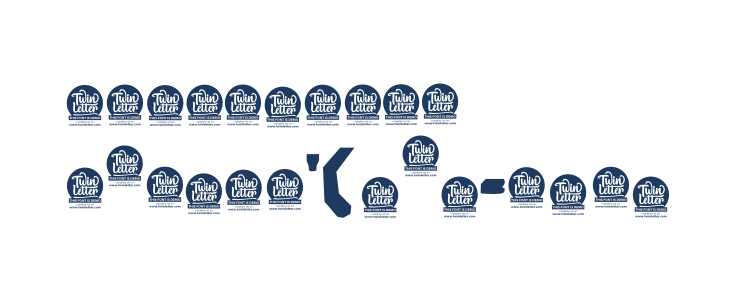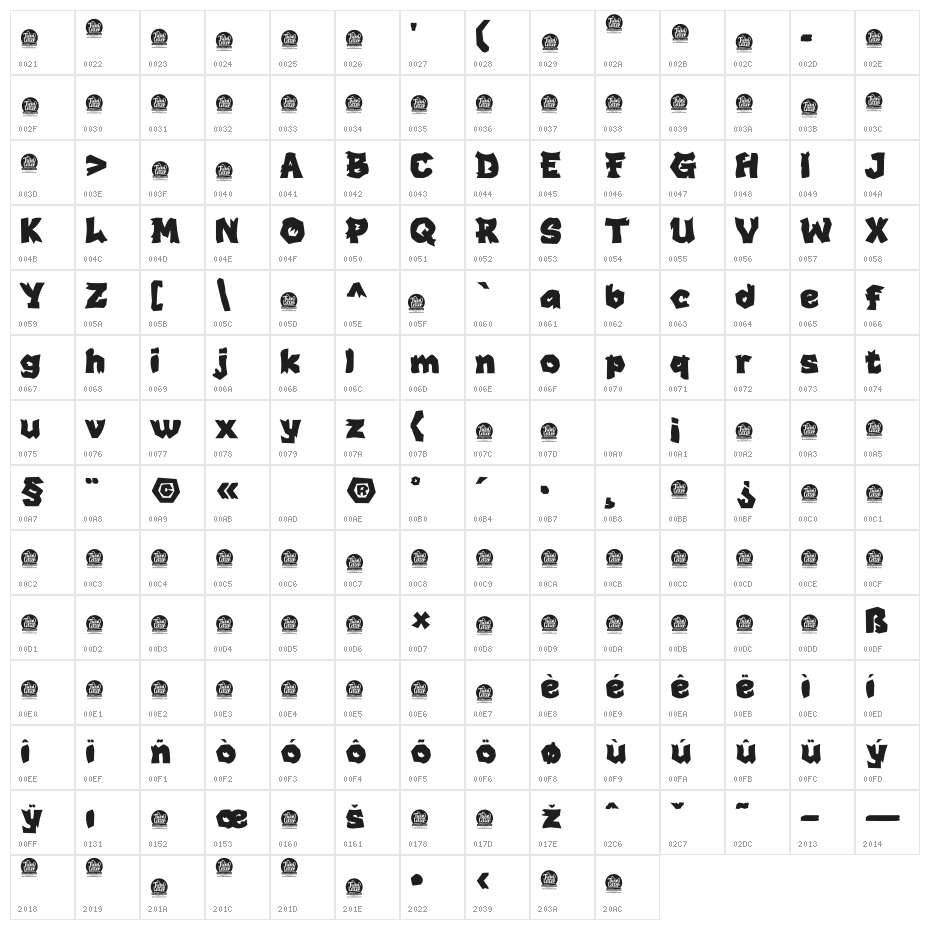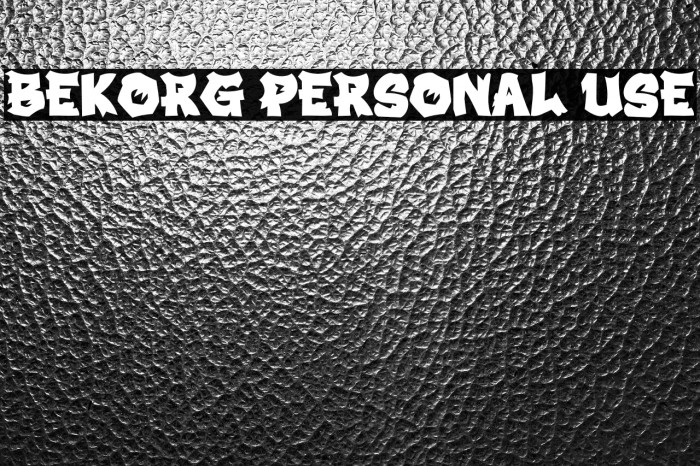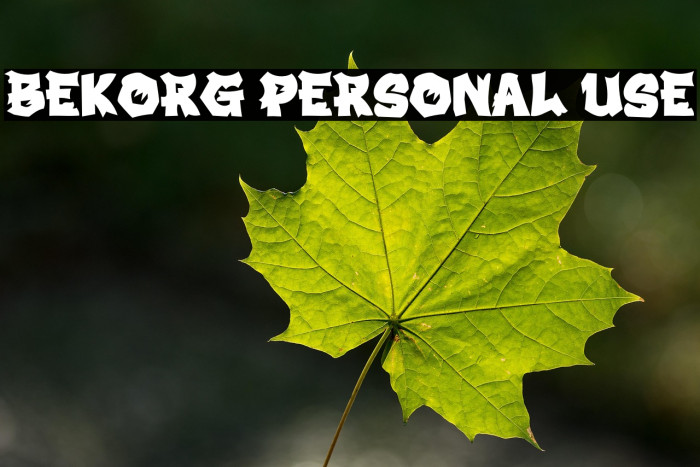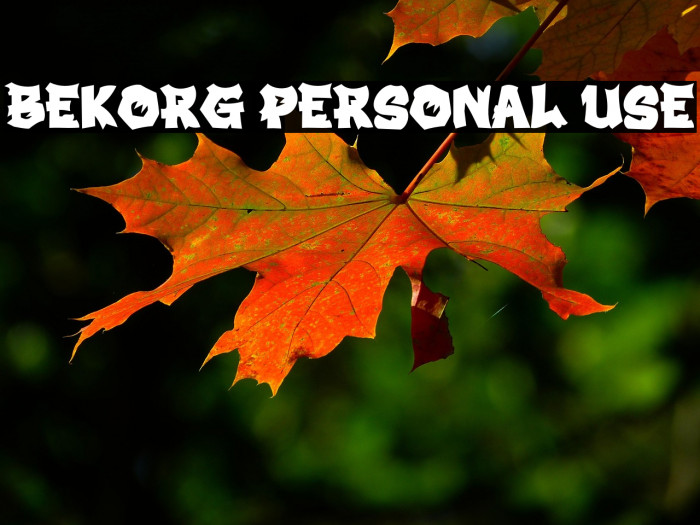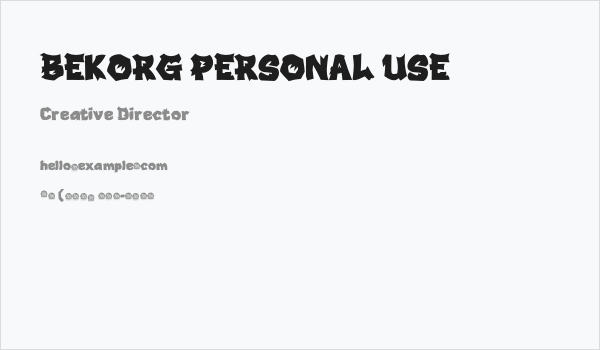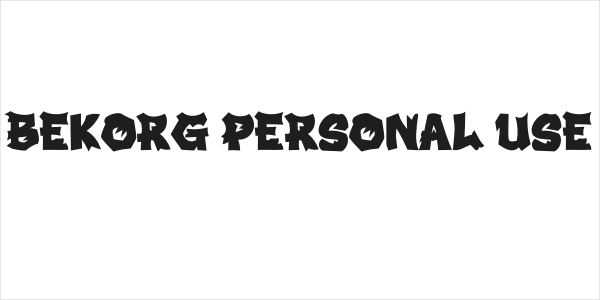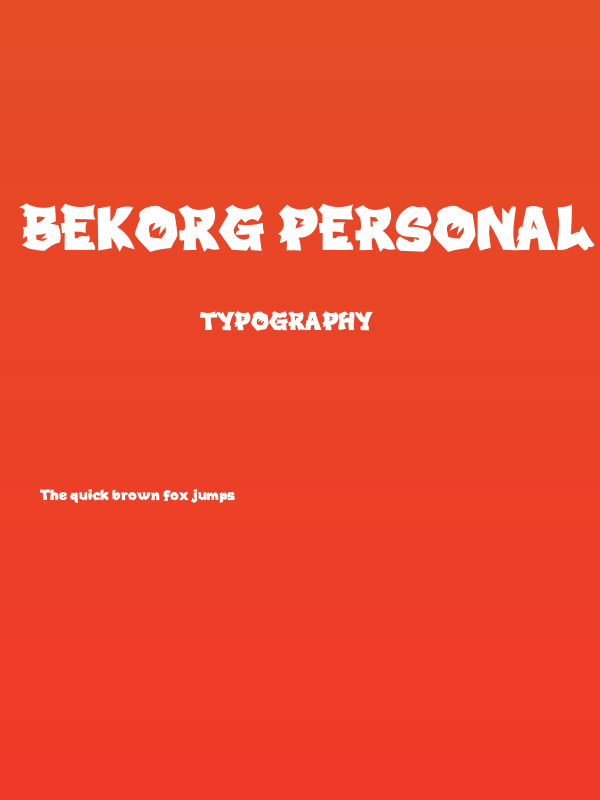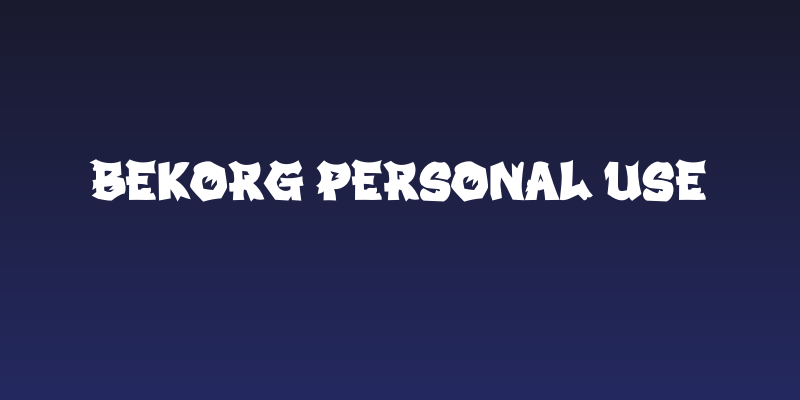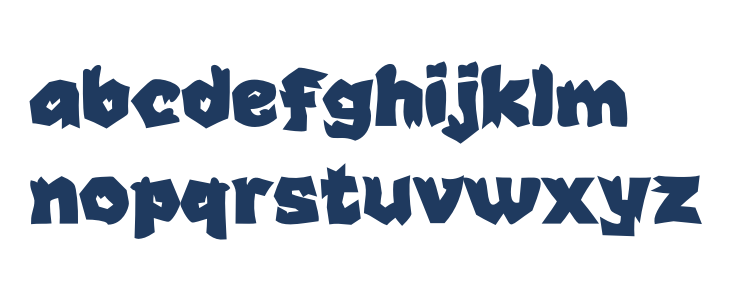
BEKORG PERSONAL USE Font
BEKORG PERSONAL USE Description
This font features a bold and dynamic style with a strong presence. The characters are designed with sharp, angular edges and a slightly irregular form, giving it a unique and edgy appearance. The uppercase and lowercase letters maintain a consistent weight, providing a cohesive look across the alphabet. The numbers and special characters follow the same design principles, ensuring uniformity. This font's boldness and distinctive style make it suitable for attention-grabbing designs.